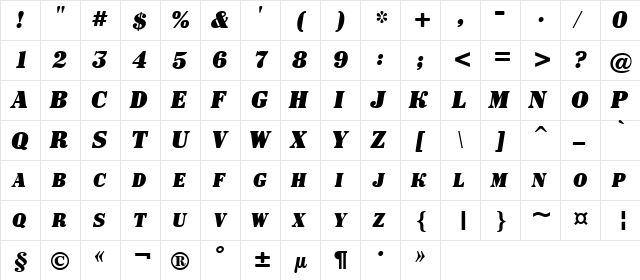
a_SignboardCps BoldItalic
Design Context for a_SignboardCps Typeface
a_SignboardCps takes a measured approach to typography — its balanced proportions and neutral character make it a reliable workhorse for both digital and print work. Its italic angle brings a sense of urgency and motion to the letterforms. Its bold stroke weight gives it real presence on the page.